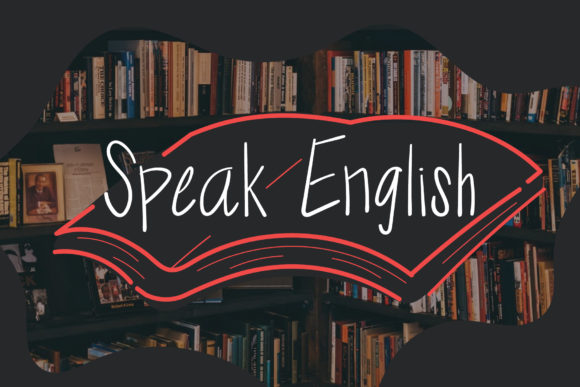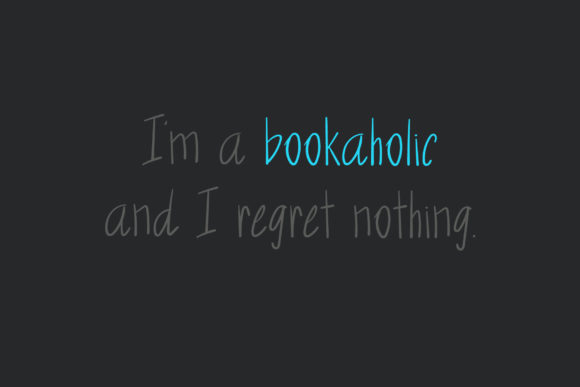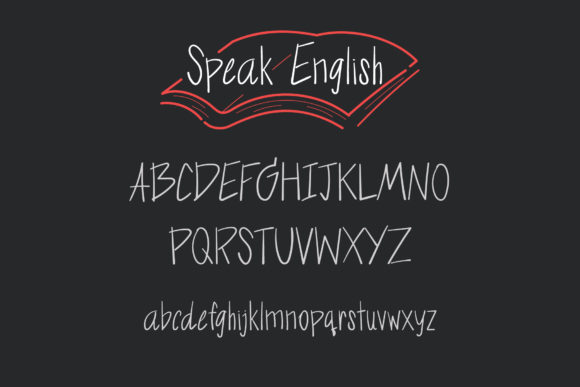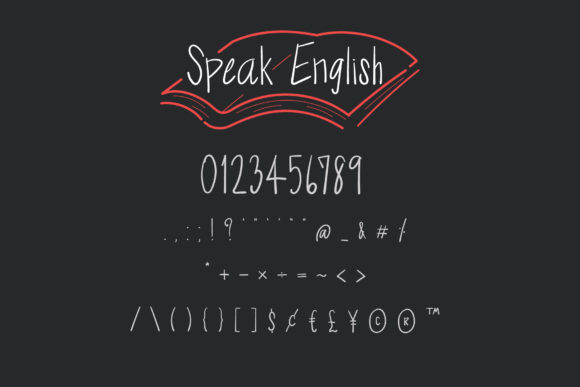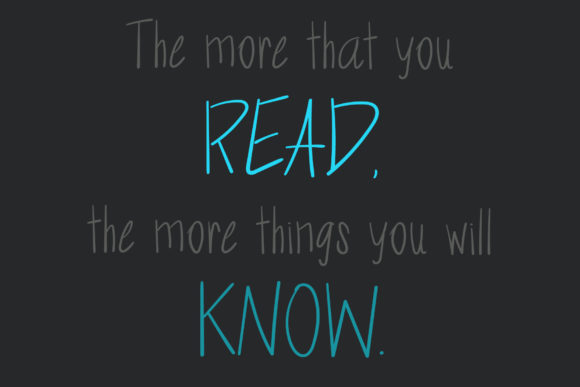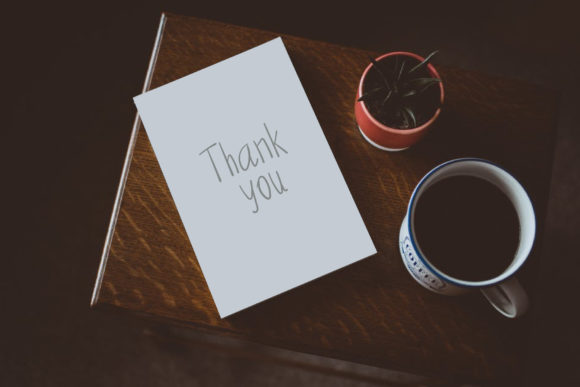
Speak English Font
About Speak English Font
Speak English embodies fun and authenticity. This enchanting handwritten font will turn any creative idea into a true standout. Get creative with its casual look and use it to brighten up any creative project!